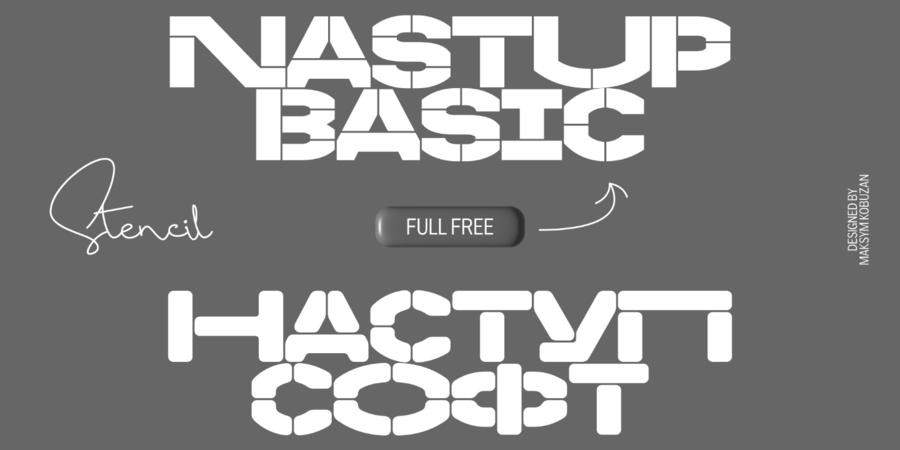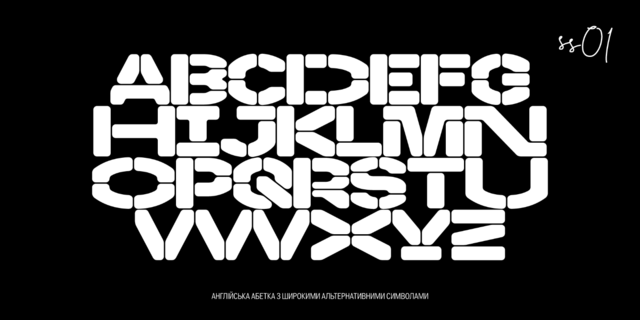
About NASTUPNASTUP is a modular stencil sans serif inspired by technical signs on the walls, as well as various building details.
A feature of the graphics in the slices of the bowl on the sides. With such minimal spacing, this gives a narrower set (especially good with minimal leading). However, it can be diversified with alternative wide or more open characters. NASTUP has 2 styles: Standard BASIC and SOFT with rounded corners.
NASTUP knows Extended Latin, Basic Cyrillic and Greek and speaks many languages. In addition, it has an alternative set of symbols for the Ukrainian alphabet.
Features: 500 total glyph set, 210+ languages, Latin Extended, Cyrillic Basic + Bulgarian + Ukrainian, Greek.
OpenType features: Uppercase, Proportional + Tabular numerals, Punctuations and symbols, Geometric shapes, Arrows, Stylistic alternates (ss01-ss03).
The typeface was designed by Maksym Kobuzan in 2022.